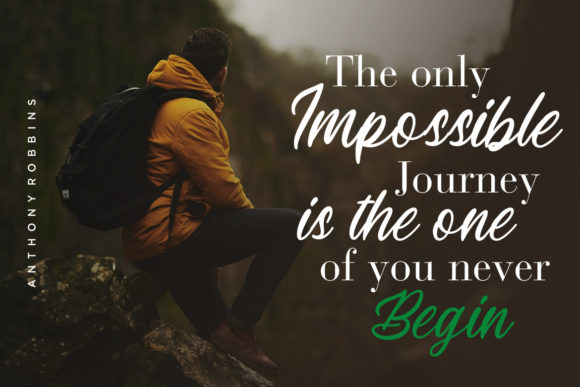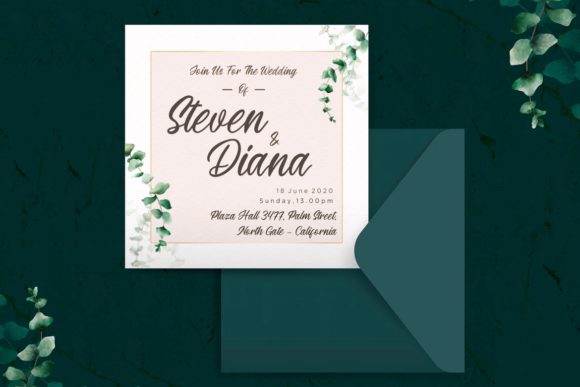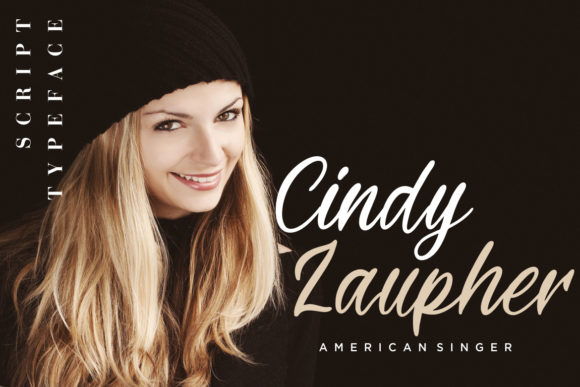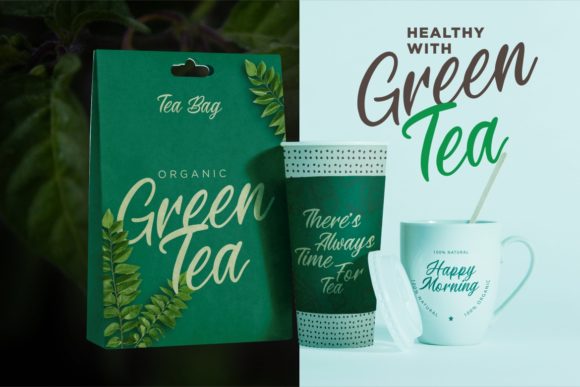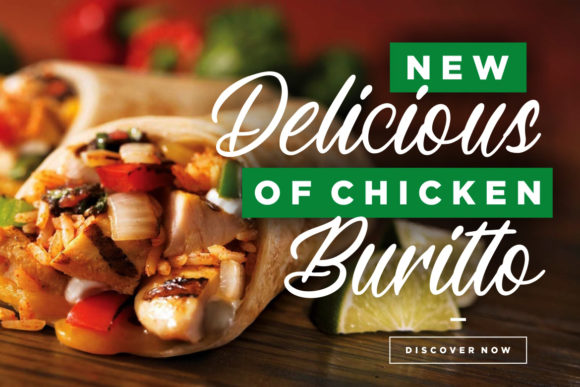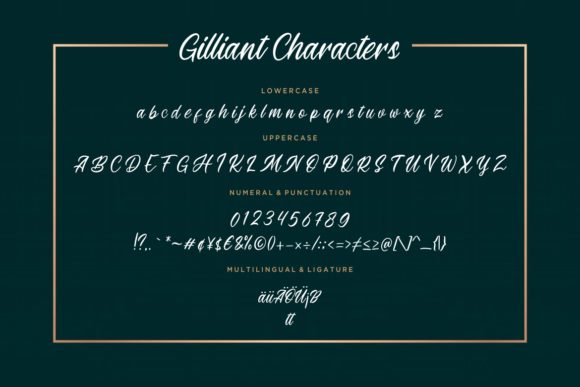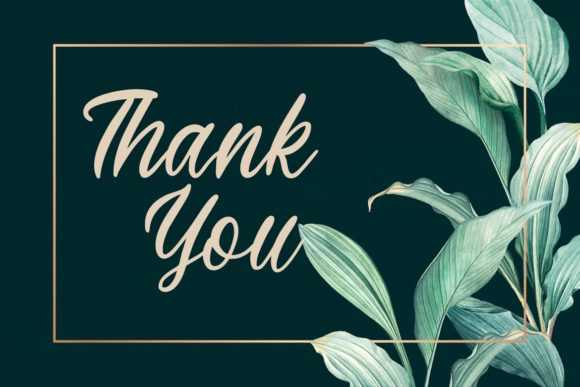
HomeScript FontsGilliant Font Script Fonts Gilliant Font FacebookXPinterestWhatsApp Gilliant Font Poster 2 Gilliant Font Poster 3 Gilliant Font Poster 4 Gilliant Font Poster 5 Gilliant Font Poster 6 Gilliant Font Poster 7 Gilliant Font Poster 8 About Gilliant Font Gilliant is a monoline script with a personal feel. Get inspired by its timeless appeal. DOWNLOAD NOW People also explored Hug Me Tight Font Boldstrike Font Kawaki Font Digital Paper Font Modern Dresses Font Bratsy Font Fathers Day Font Goodsay Font Potato Chips Font 298 0 TagsGilliant Font Previous articleForestry FontNext articleMarttiny Font LEAVE A REPLY Cancel reply Comment: Please enter your comment! Name:* Please enter your name here Email:* You have entered an incorrect email address! Please enter your email address here Website: Save my name, email, and website in this browser for the next time I comment. Personal Use Free Pattern Personal Use Free Read more about this font Special Day Personal Use Free Read more about this font Austins Personal Use Free Read more about this font Dealerplate California Personal Use Free Read more about this font BLOG Best Fonts for T-Shirt Design – Top 2025 Picks In 2025, t-shirt design has become more than just fashion—it's a form of self-expression. Whether you're... How to Cut Any Font on Cricut: Convert a Font to SVG (Free) The 10 Best Handwriting Fonts to Add Personality to Your Designs To increase your work productivity, choose the most readable fonts.